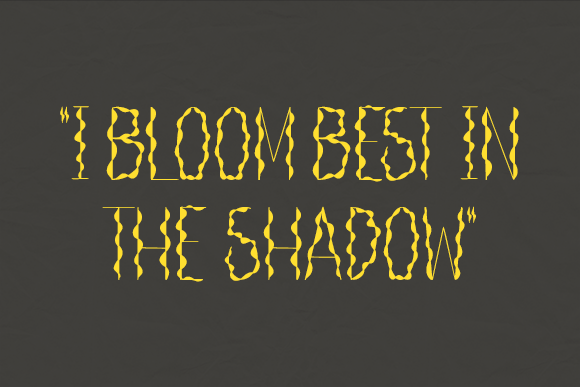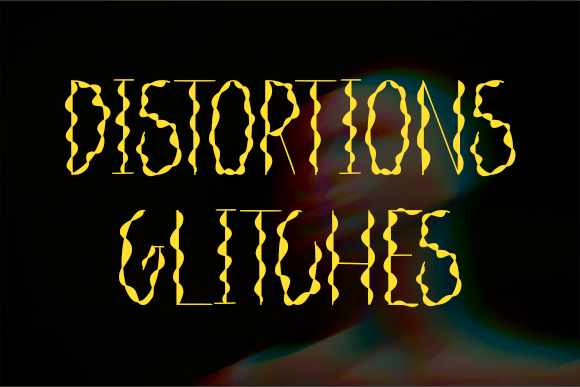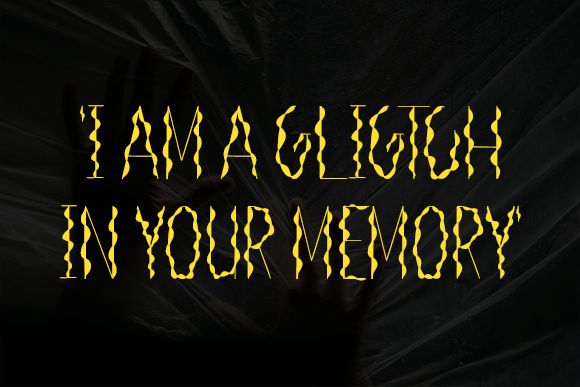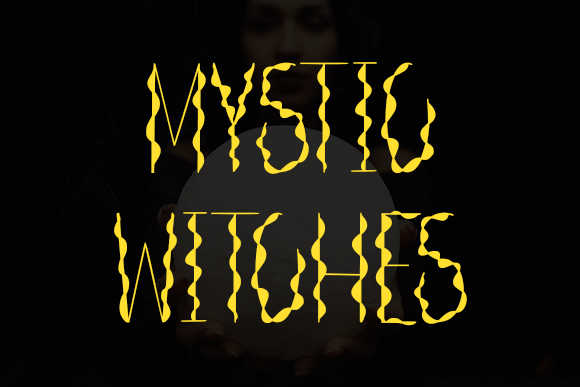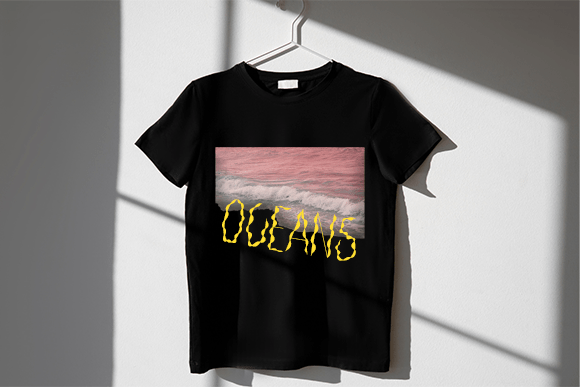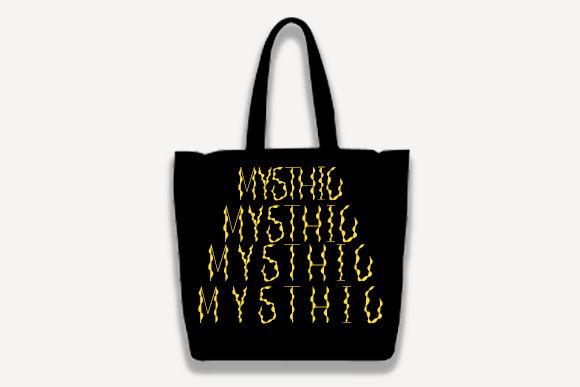
Introduction to Skywaves Font
Have you ever been stuck in a creative rut, searching for that perfect font to elevate your design from ordinary to extraordinary? I know I have. It’s like finding the missing piece of a puzzle – everything clicks into place, and your project transforms into something truly special. For me, that missing piece was the Skywaves Font, a stunning display font that adds a touch of magic to any design.
With its dynamic, undulating charisma, Skywaves Font is the ideal choice for designers seeking to infuse their projects with a unique, high-quality look. Whether you’re working on a corporate logo, promotional poster, or creative project, this font is sure to leave a lasting impression. And the best part? It’s available for free download, making it an invaluable resource for designers of all levels.
As a design resource, Skywaves Font is a game-changer, offering a transparent background and endless possibilities for creative expression. So why settle for ordinary when you can have extraordinary? Discover the captivating allure of Skywaves Font and take your designs to the next level.
Key Features of Skywaves Font
- High-quality, unique design with a transparent background, perfect for creative projects.
- Designed to be versatile and suitable for a wide range of design applications, from logos to digital art.
Honest Review: Skywaves Font
As a designer, I’m always on the lookout for high-quality design resources to elevate my creative projects. Recently, I had the opportunity to test out the Skywaves Font, and I’m excited to share my honest review.
First impressions: the Skywaves Font is a beautiful, modern sans-serif font that’s perfect for a variety of design applications. What works well: ✨ the font is incredibly versatile and can be used for both digital and print projects, ✨ the high-quality design makes it perfect for logos, branding, and other design elements, and ✨ the transparent background makes it easy to layer over images and other design elements.
- Perfect for digital and print projects
- Great for logos, branding, and other design elements
That being said, I do have a few limitations to note: ⚠️ the font may not be suitable for extremely small text sizes, and ⚠️ it may not be available for free download for commercial use.
Overall impression: the Skywaves Font is a fantastic addition to any designer’s toolkit. With its high-quality design, versatility, and transparent background, it’s perfect for a variety of creative projects. While there are a few limitations to be aware of, I highly recommend giving it a try – especially if you’re looking for a free download for personal use!
Tips for Getting the Most Out of Skywaves Font
To get the most out of the Skywaves Font, experiment with different font sizes, colors, and combinations. This will help you achieve a unique and creative look for your design project.
The Skywaves Font is perfect for various design projects, including:
– Posters and flyers
– Presentations and slides
– Social media graphics and ads
– Branding and marketing materials